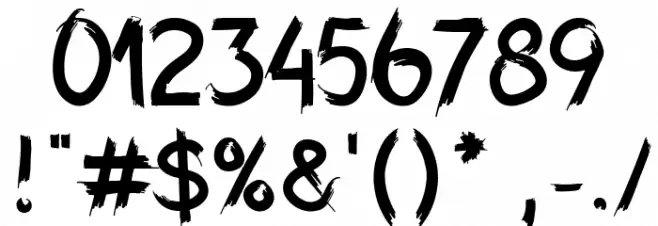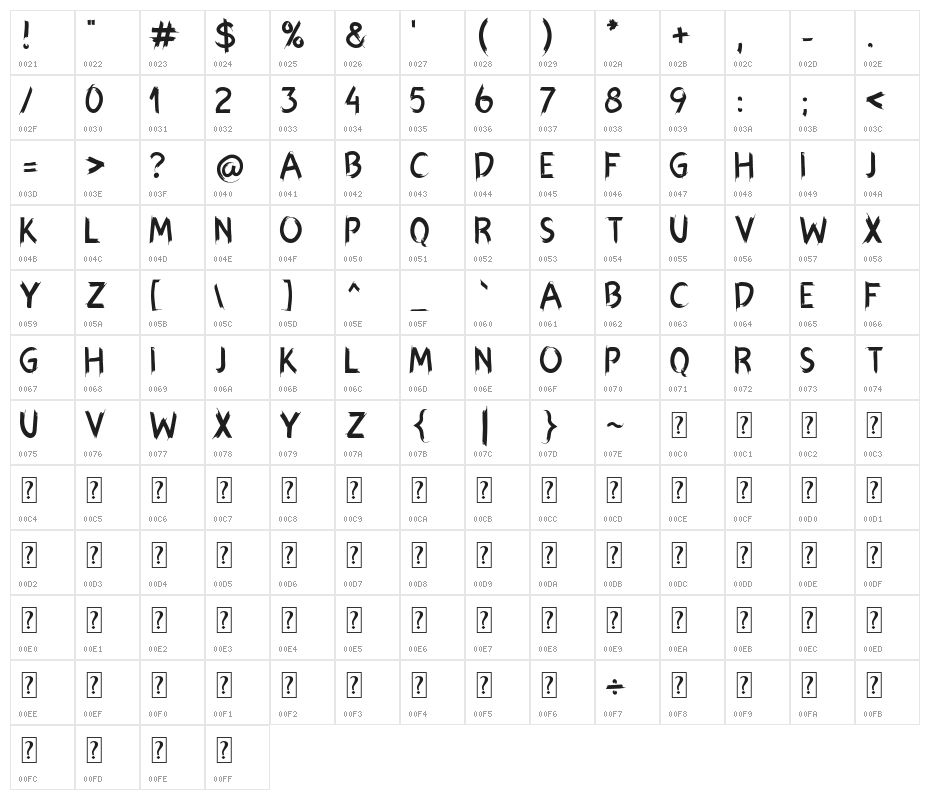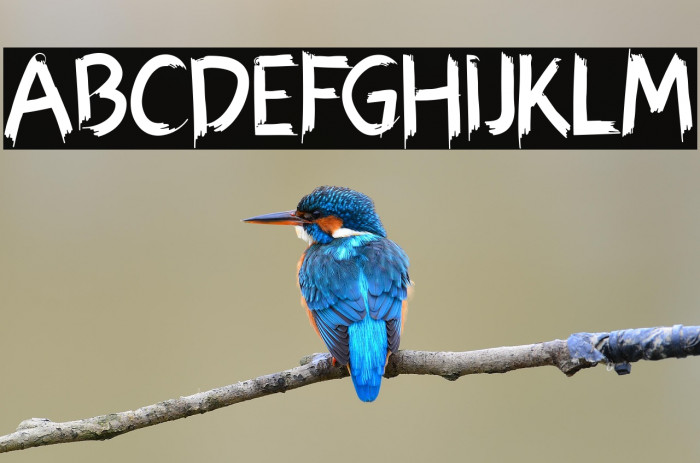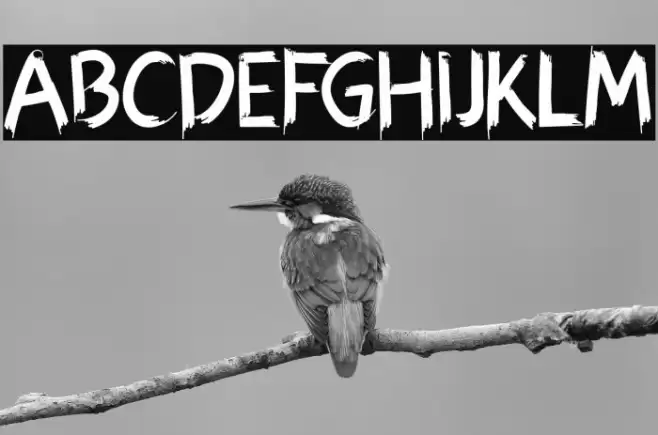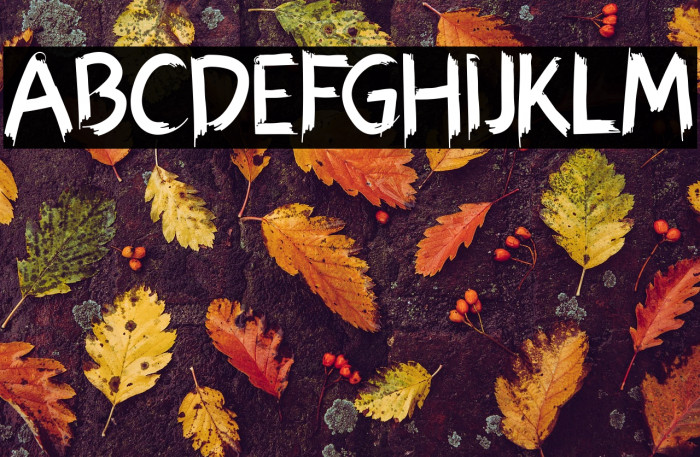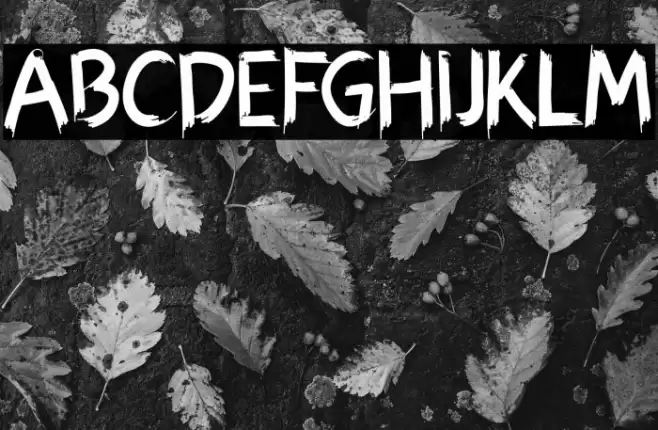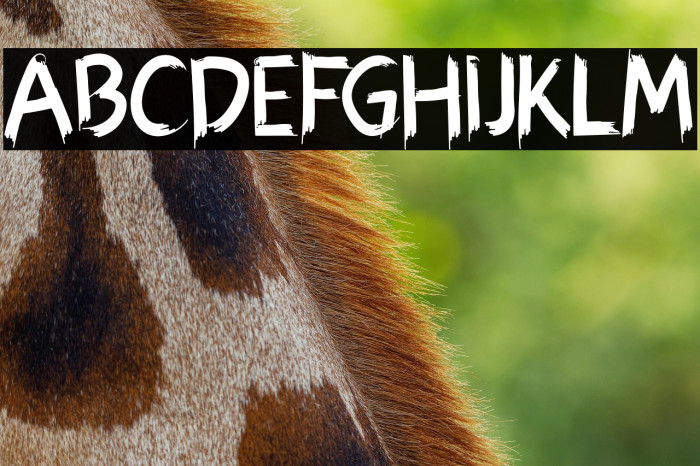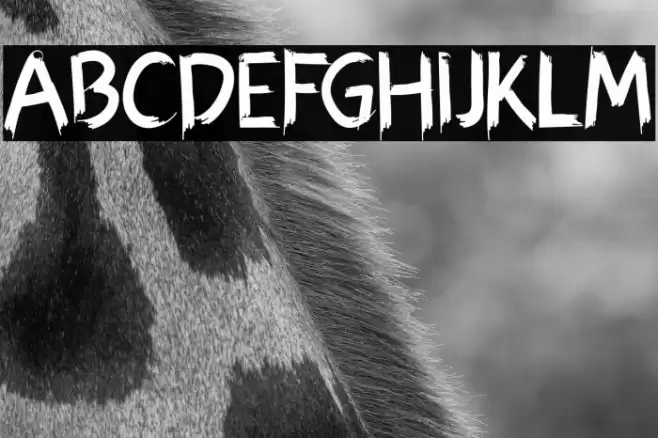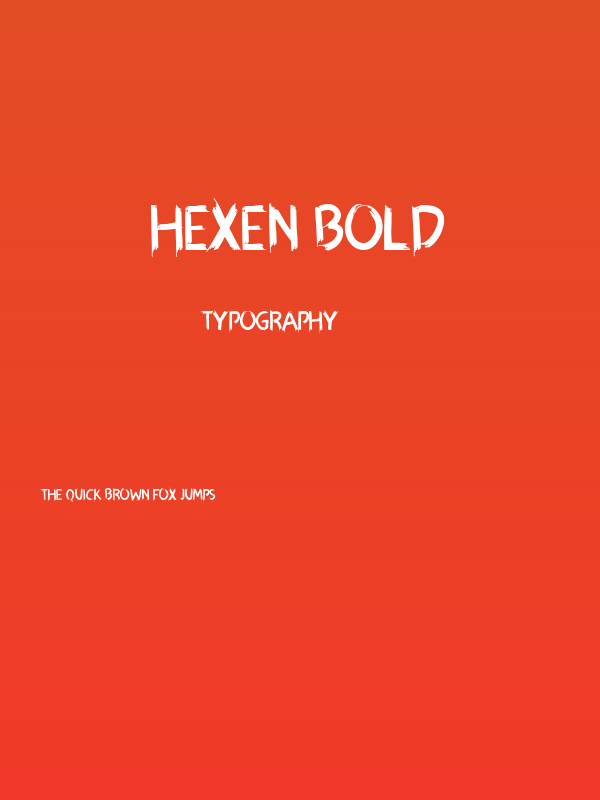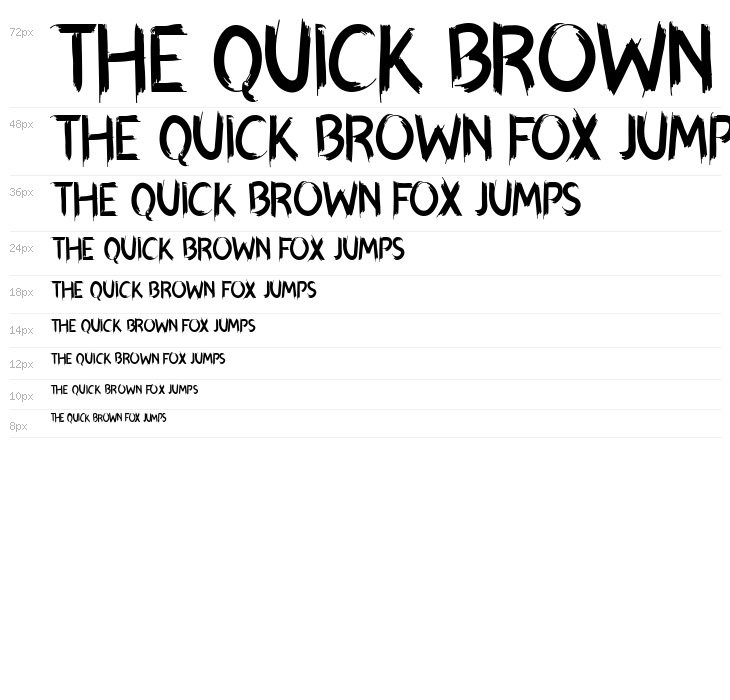
This font features a bold and dynamic style with a brush-like appearance, giving it an energetic and slightly chaotic feel. The strokes are thick and uneven, adding a sense of movement and intensity. The characters are slightly irregular, enhancing the hand-drawn aesthetic. This font is highly distinctive, making it ideal for grabbing attention. The uppercase and lowercase letters maintain a consistent style, while the numbers and special characters complement the overall design. Its unique look makes it suitable for projects that require a strong visual impact.
Overall StyleModern, Decorative
Proposed ProjectsIdeal for posters, album covers, video game graphics, and any project needing a bold, eye-catching typeface.